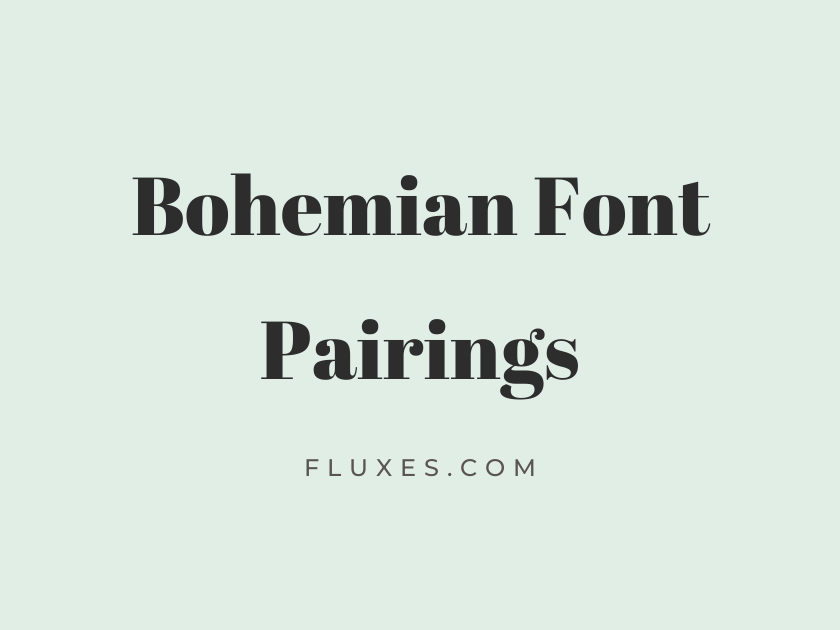
35 Bohemian Font Pairings
Bohemian design thrives on texture: the layered feel of a hand-lettered sign next to a well-worn paperback, of macrame and linen and sun-bleached wood. Font pairings for a boho brand or wedding suite need that same layered warmth, so the strongest combinations mix a characterful, slightly imperfect display face with a body font that stays legible and calm. The Google Fonts pairings below lean into scripts, humanist serifs, and softly rounded sans faces that read as handmade rather than corporate.
Abril Fatface + Lato
Wander, Wonder, Wildflower
A soft, humanist sans that lets the bold display font take the spotlight.
Abril Fatface has the ink-heavy contrast of a vintage letterpress poster, so it needs a body font that recedes without going cold. Lato’s rounded terminals and even spacing keep long paragraphs friendly and easy to read beneath that dramatic headline.
Playfair Display + Karla
Free Spirit, Slow Living
Karla brings a grounded, everyday warmth to sit under a more romantic headline.
The high-contrast strokes of Playfair Display read as literary and a little theatrical, which suits boho branding that wants an artistic edge. Karla’s grotesque simplicity keeps the pairing from tipping into pure vintage pastiche.
Fraunces + Nunito Sans
Sun-Baked and Barefoot
Nunito Sans stays soft and unobtrusive so the wonky charm of Fraunces can lead.
Fraunces was built with deliberate old-style wonkiness, the kind of imperfection that feels handcrafted rather than sloppy. Nunito Sans is clean enough to balance that character, making this pair work well for artisan shops and small-batch product labels.
Cormorant Garamond + Jost
Petals, Dust, and Sage
Jost adds a geometric, Bauhaus-inflected calm beneath the delicate serif headline.
Cormorant Garamond is thin and jewelry-like at large sizes, evoking pressed flowers and old love letters. Jost’s rounded geometry keeps body text modern and readable, a useful contrast for wedding stationery that wants romance without looking dated.
Yeseva One + Mulish
Gather Under the Stars
Mulish is a restrained workhorse sans that carries copy without competing for attention.
Yeseva One has a carved, folk-art quality in its curves, almost like hand-painted signage from a market stall. Mulish is deliberately understated, so it lets that personality carry the page while keeping paragraphs comfortable to scan.
Amatic SC + Vollkorn
Handmade Market Goods
Vollkorn's warm, slightly rounded serif shapes echo the handcrafted feel of the headline.
Amatic SC looks like it was drawn with a marker on a chalkboard, perfect for craft fairs and small studio branding. Vollkorn shares that unpolished warmth in a more readable serif form, so the two feel like they came from the same handmade world.
Caveat + Bitter
Notes from the Road
Bitter grounds a casual handwritten headline with a sturdy, slab-serif structure.
Caveat mimics genuine handwriting, loose and looping in a way that instantly reads as personal. Bitter’s slab serifs give the layout a stable base, a good balance for travel blogs and journal-style content.
Sacramento + Lora
Golden Hour Gatherings
Lora's brushed curves keep the body copy soft without losing serious readability.
Sacramento is a delicate monoline script, closer to calligraphy than casual handwriting, which suits invitations and soft-focus branding. Lora’s calligraphic roots make it a natural companion, since both fonts share a brushed, hand-drawn origin story.
Parisienne + Cardo
Vintage Rose Garden
Cardo is an old-style serif built for long reading, calm beneath a flowing script.
Parisienne’s elegant, slightly retro loops feel at home on perfume labels and boutique packaging. Cardo’s book-like proportions and generous x-height keep supporting text legible at small sizes, which matters once the script headline has done its job.
Alex Brush + Crimson Text
Wild Hearts Wander Free
Crimson Text reads like a well-set novel, a quiet companion to an expressive script.
Alex Brush has real pen pressure variation, giving it an authentic calligraphic feel rather than a generic script look. Crimson Text was modeled on old-style book faces, so the pairing feels literary, suited to zines and personal essay sites.
Great Vibes + PT Serif
Bohemian Rhapsody in Bloom
PT Serif is sturdy and even-toned, an anchor beneath an ornate script headline.
Great Vibes is ornamental enough to carry a single word or short phrase but can overwhelm a page if overused, so it works best as a headline only. PT Serif’s plain, workmanlike letterforms keep the rest of the layout functional and easy to trust.
Yellowtail + Merriweather
Sunset Over the Desert
Merriweather's sturdy serifs and generous curves feel earthy beneath a playful script.
Yellowtail has a bouncy, brush-marker energy that suits casual, sun-drenched branding, think desert retreats and vintage vans. Merriweather was designed for screen reading, so it keeps the mood relaxed without sacrificing clarity in longer passages.
Tips for pairing boho fonts
Limit yourself to one script or heavily decorative display font per layout and let the body font stay calm; two expressive faces on one page usually compete rather than complement.
Check x-height and stroke weight side by side. A tall, thin script needs a body font with enough presence to hold its own at small sizes.
Texture matters more than trend here. Favor faces with a little irregularity, brushed edges, uneven serifs, hand-drawn curves, since that imperfection is what reads as bohemian rather than generic.